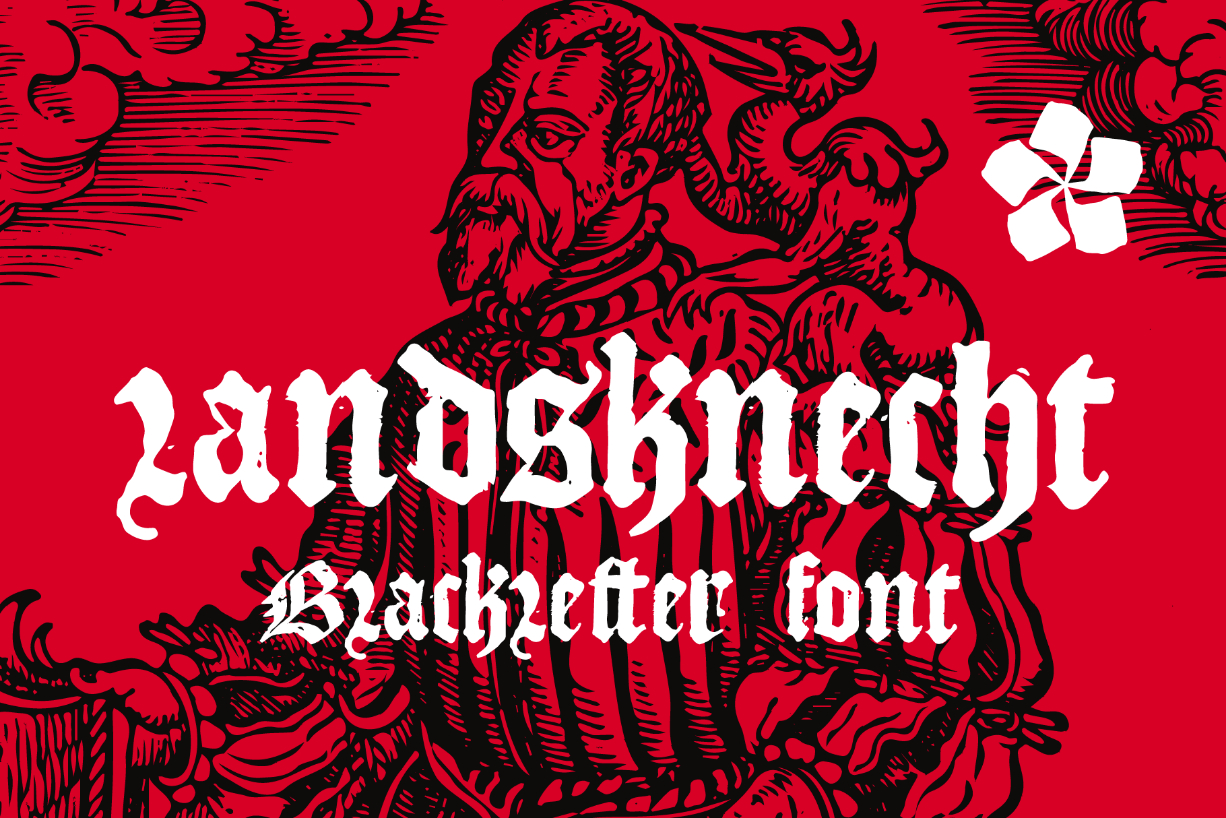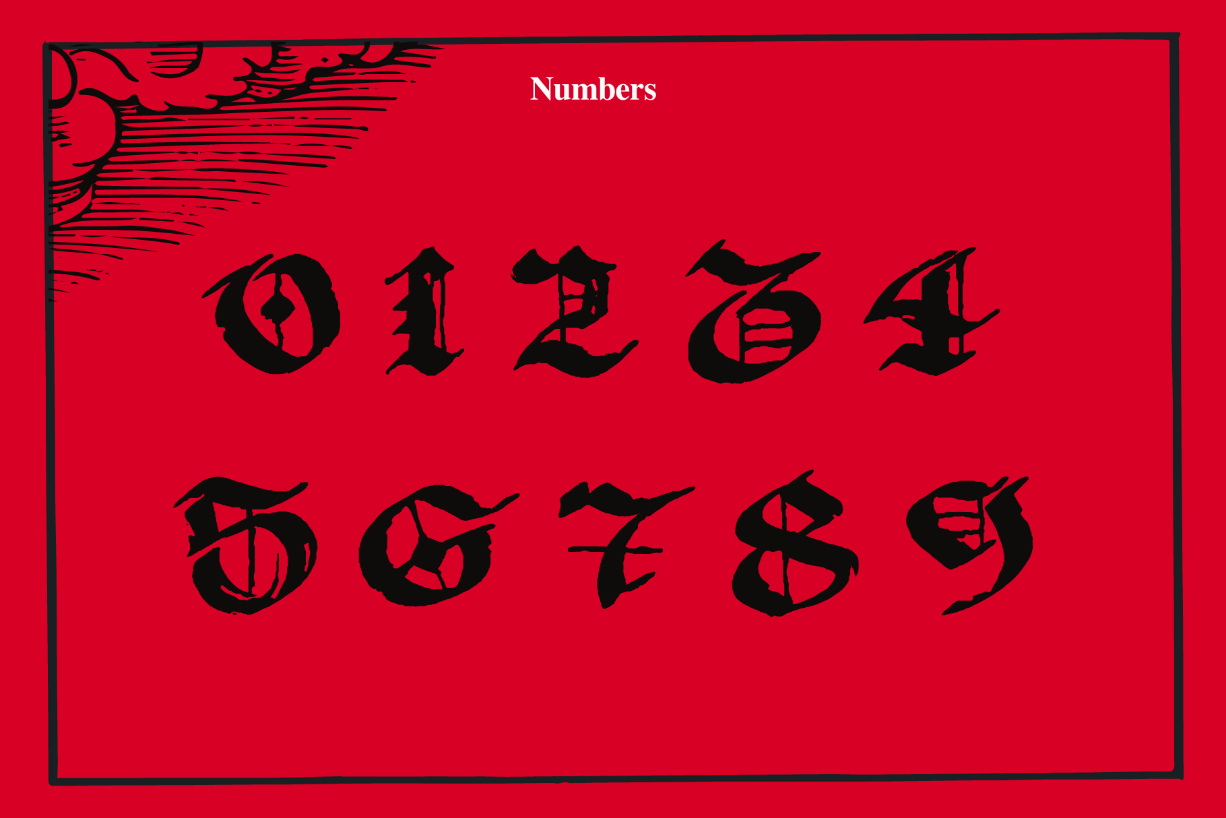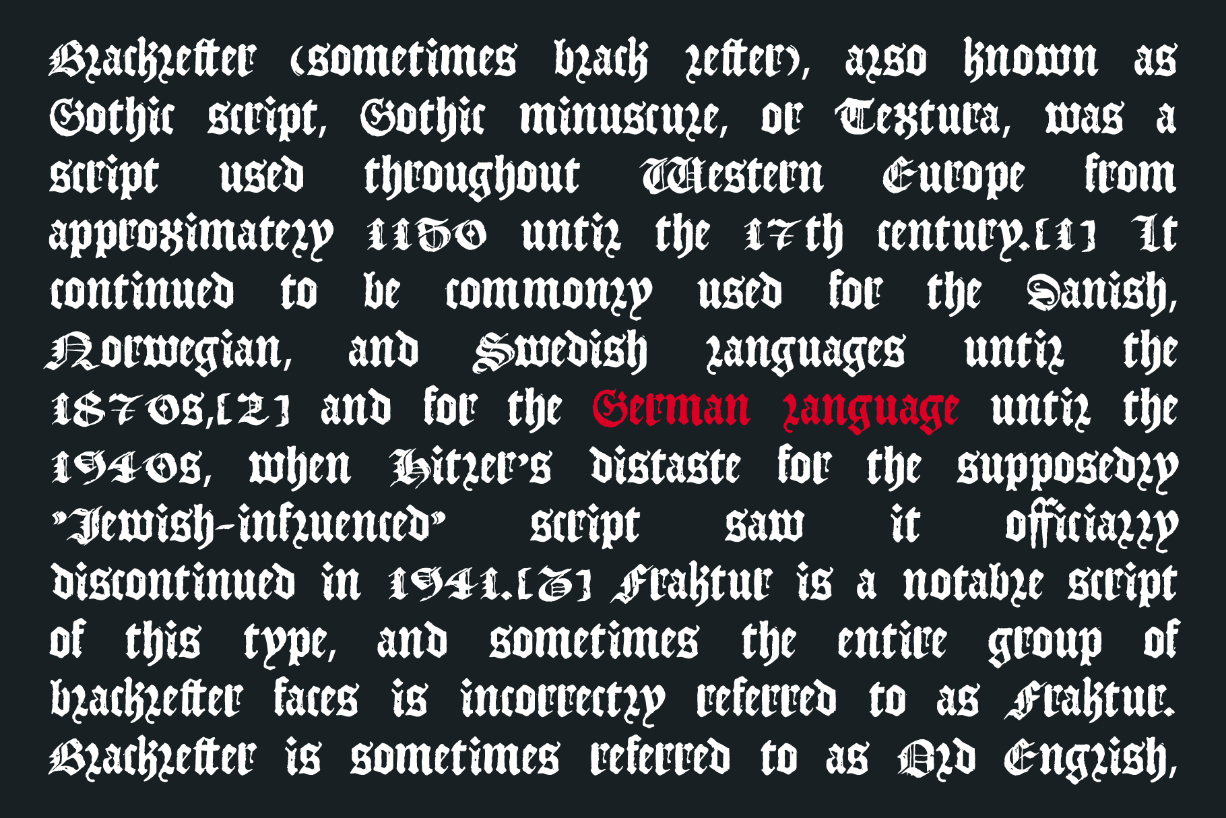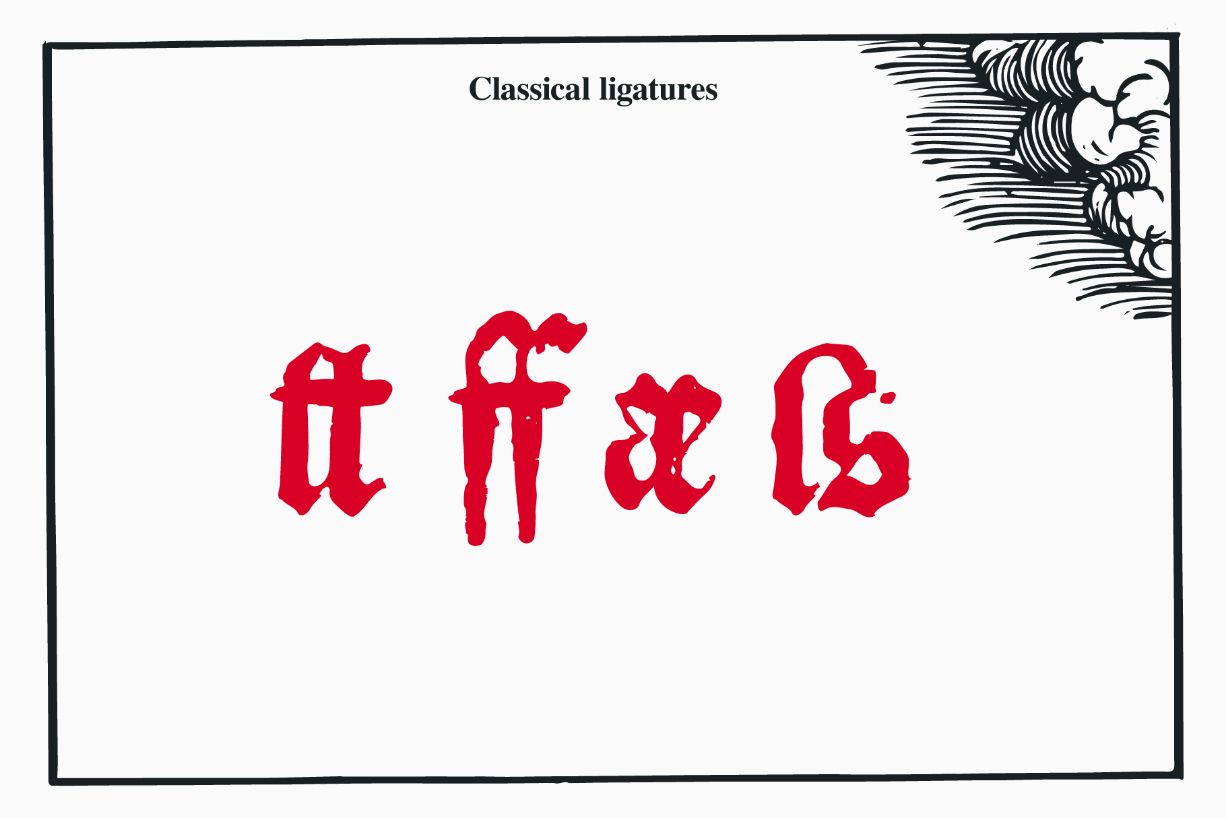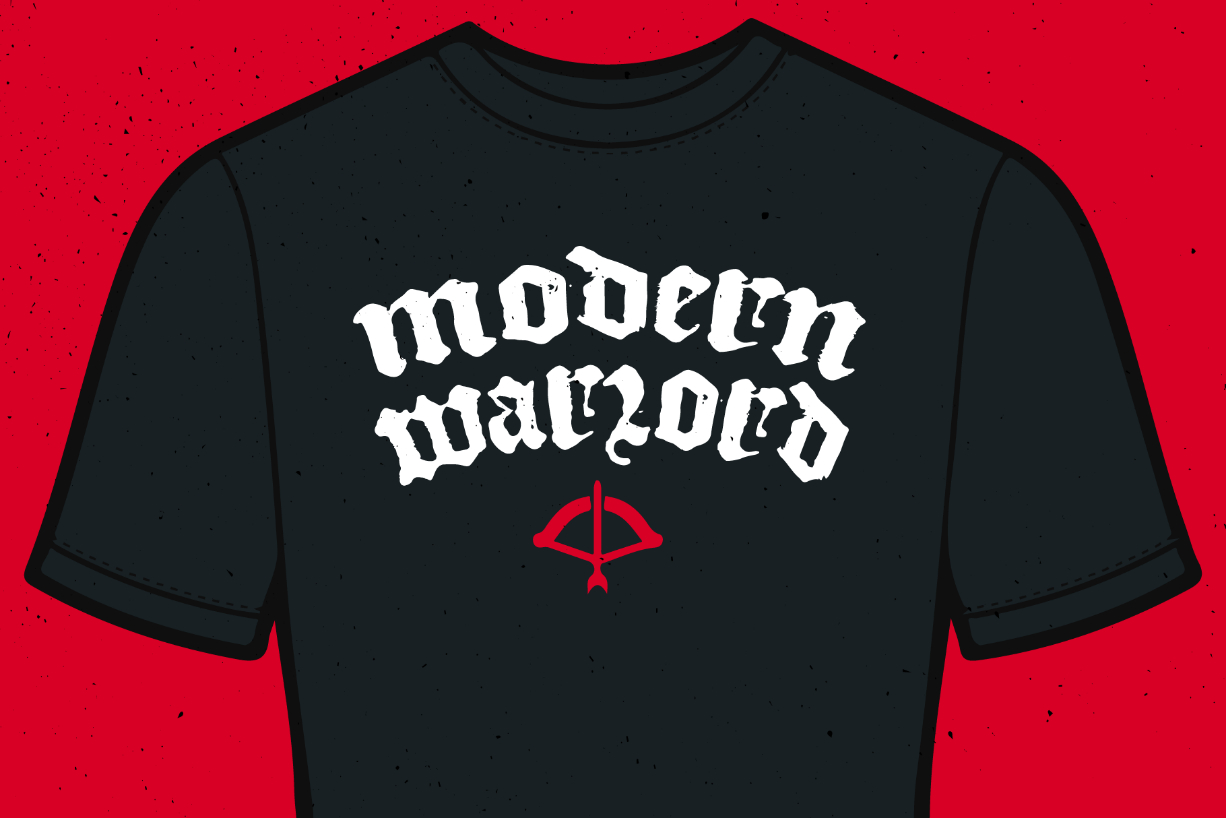
Landsknecht Font
About Landsknecht Font
Landsknecht is a blackletter-style calligraphy font.
Do you need to design perfect alcohol labels, retro style logos, music album covers, circus posters, luxury packaging identity, etc? If you want dark and strong medieval-style concepts, try Landsknecht!